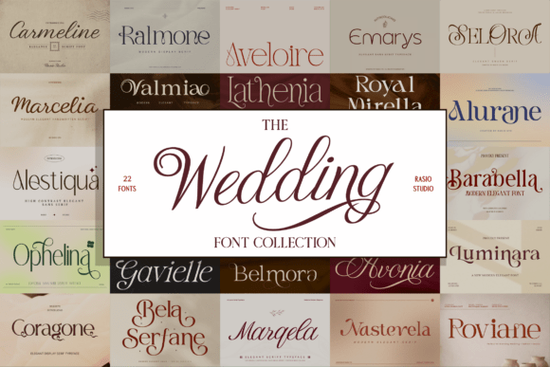
Finding the right fonts for wedding projects can be surprisingly tricky. You need typefaces that feel romantic but not overly decorative, elegant but still readable. That's exactly what the Wedding Collection Font bundle is built for a set of 22 carefully chosen typefaces that cover everything from invitation suites to signage and editorial layouts. Whether you're a designer working on a client's wedding stationery or a crafter selling printable products online, this collection gives you a solid range of serif, script, and display fonts to work with.
What fonts are included in this wedding bundle?
The collection features a mix of refined serif styles and flowing script typefaces. Think graceful curves, thin strokes, and letterforms that feel handcrafted without being messy. Some standout styles include elegant scripts like Amoretta Script, which works beautifully for names and monograms, and serif options like Seraphina that pair well for body text on menus and programs.
You'll also find delicate display fonts like Lovebirds Display and romantic brush scripts such as Dear Sarah both popular choices for save-the-date cards and social media announcements.
The variety means you're not stuck using one font for everything. You can create hierarchy and visual interest by mixing scripts with serifs, which is a classic approach in elegant serif typography.
Is this font collection only for wedding invitations?
Not at all. While the fonts are inspired by luxury wedding aesthetics, they work well across many projects:
- Wedding invitations and stationery save-the-dates, RSVP cards, programs, menus
- Print-on-demand products mugs, tote bags, wall art, and apparel with romantic quotes
- Brand identity luxury beauty brands, boutique shops, photography studios
- Editorial design magazine layouts, blog graphics, lookbooks
- Digital products Canva templates, social media kits, digital planners
The key is that these fonts carry a sense of refinement and softness. They're not limited to one use case. A stylish serif with a relaxed feel or a decorative modern typeface can share similar design DNA with wedding fonts when the goal is sophistication.
How do you pair fonts from this collection?
Good font pairing is about contrast and balance. Here's a simple approach:
- Start with a script or display font for headlines, names, or key phrases. Fonts like Mon Cheri draw attention and set the mood.
- Match it with a clean serif for supporting text. Something like Calligraphy Wedding keeps things readable while staying elegant.
- Use weight and size to create hierarchy bold or larger for headings, lighter or smaller for details.
If you're working on a broader project that mixes styles, pairing wedding fonts with something like an editorial serif typeface can create interesting contrast while keeping the overall feel cohesive. A geometric modern font paired with a romantic script also works surprisingly well for contemporary designs.
Many of the script fonts include alternates, ligatures, and swashes that you can access through the Glyphs panel in design software. These extras let you customize letter connections and add flourishes for a more handcrafted look.
Start by picking two fonts from the collection one script for impact, one serif for readability and build your layout around that pairing. It's the fastest way to get a polished result without overthinking it.